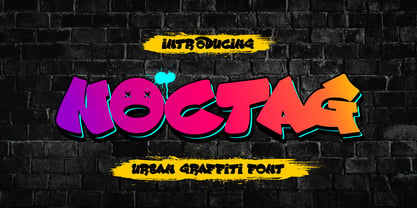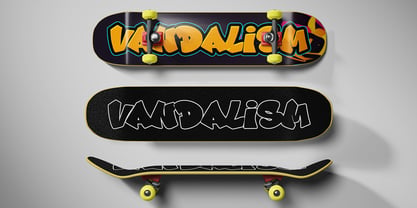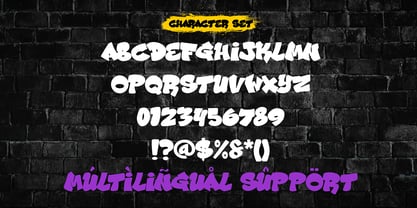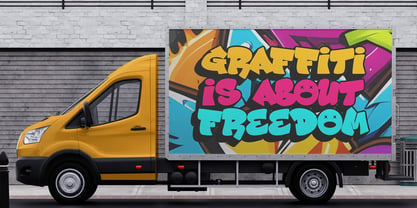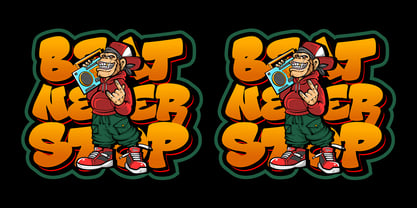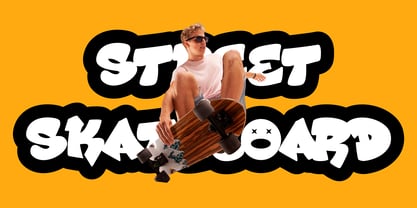
Noctag
Die Schriftfamilie Noctag wurde von Sipanji entworfen und von Sipanji21 veröffentlicht. Noctag enthält 1 Stile. Mehr über diese Familie
This urban graffiti style typeface is inspired by bold street lettering, playful hand-drawn forms, and expressive wall art found in modern city culture. Designed with thick strokes, rounded shapes, and energetic curves, this typeface delivers a strong visual impact that instantly grabs attention. The letterforms feel alive, dynamic, and rebellious—perfectly representing urban youth energy, street branding, and contemporary graphic design. Each character is carefully crafted to maintain readability while preserving a raw graffiti personality. The bold silhouette allows the typeface to stand out on posters, album covers, streetwear branding, skate graphics, urban logos, and social media visuals. Its rounded graffiti structure brings a friendly yet powerful presence, making it suitable for both aggressive street concepts and fun, playful designs. This typeface supports uppercase and lowercase characters, providing flexibility for various design compositions. The lowercase letters keep the same graffiti attitude while adding rhythm and variation to text layouts. With numbers and punctuation included, designers can confidently use it for complete typographic systems, headlines, titles, and expressive short texts. Multilingual support ensures that this typeface works across a wide range of languages, making it ideal for global projects, international branding, and cross-cultural visual communication. Whether you are designing for apparel brands, music events, gaming visuals, YouTube thumbnails, or graffiti-inspired digital artwork, this typeface adapts seamlessly. The strong graffiti identity makes it especially suitable for: Urban streetwear branding Hip-hop and rap album artwork Skate, BMX, and street culture designs Poster and flyer headlines Gaming titles and esports branding YouTube thumbnails and social media posts Sticker designs and merchandise Event branding and youth campaigns This typeface is designed to perform exceptionally well in large sizes where its bold shapes and playful details can fully shine. It works best as a display font, headline font, or logo font where strong personality is essential. By combining bold graffiti aesthetics with clean digital construction, this typeface bridges the gap between raw street art and professional design needs. It gives designers the freedom to express creativity without sacrificing usability. If you are looking for a graffiti-inspired typeface that feels modern, energetic, and highly marketable, this design is built to deliver strong visual results across print and digital platforms.